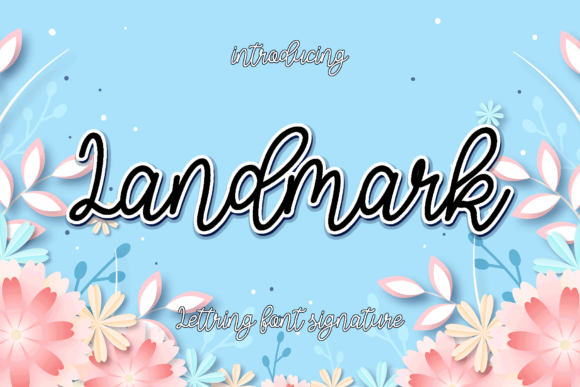
Landmark Font
Unleash the Elegance: Landmark Font - A Timeless Masterpiece for Your Creative Endeavors
In a realm of digital expressions, Landmark Font emerges as a radiant jewel, illuminating your designs with its timeless beauty. This modern handwritten font, crafted by the visionary minds at MYdesign, embodies the essence of effortless sophistication and contemporary charm. Its graceful strokes, reminiscent of a calligrapher's quill, lend an air of authenticity and warmth to your creations, captivating audiences with their organic allure.
With Landmark Font, your words take on a life of their own, whispering secrets of elegance and individuality. Its meticulously crafted characters dance across the screen, inviting readers to immerse themselves in a world of artistic expression. Whether you're crafting logos that demand attention, designing marketing materials that leave a lasting impression, or simply adding a touch of flair to your personal projects, Landmark Font is your trusted companion, guiding you toward creative excellence.
Step into a Realm of Versatility: Landmark Font's Universal Appeal
Landmark Font is not merely a font; it's a versatile chameleon, effortlessly adapting to a myriad of design landscapes. Its inherent charm shines through on busy backgrounds, where it commands attention without overpowering the visual symphony. As a standalone headline, it captivates audiences with its bold presence, leaving an indelible mark on their minds.
Imagine the allure of your logos, imbued with Landmark Font's timeless elegance. Your brand identity will radiate with a touch of sophistication, attracting customers with its understated yet undeniable appeal. Your marketing materials, adorned with Landmark Font's graceful strokes, will transcend mere words, becoming captivating narratives that resonate with your target audience. And as you weave your creative magic into personal projects, Landmark Font will be your faithful ally, transforming your visions into tangible works of art.
Discover the Magic of Landmark Font: A Symphony of Style and Substance
Landmark Font is more than just a collection of characters; it's an invitation to elevate your designs to new heights of artistry. Its enchanting curves and confident strokes add a touch of magic to every project, captivating audiences with their effortless charm.
Experience the transformative power of Landmark Font as you witness your words metamorphose into captivating headlines, your logos into emblems of distinction, and your personal projects into expressions of your boundless creativity. With Landmark Font as your creative partner, you'll unlock a world of possibilities, crafting designs that leave a lasting legacy of beauty and innovation.